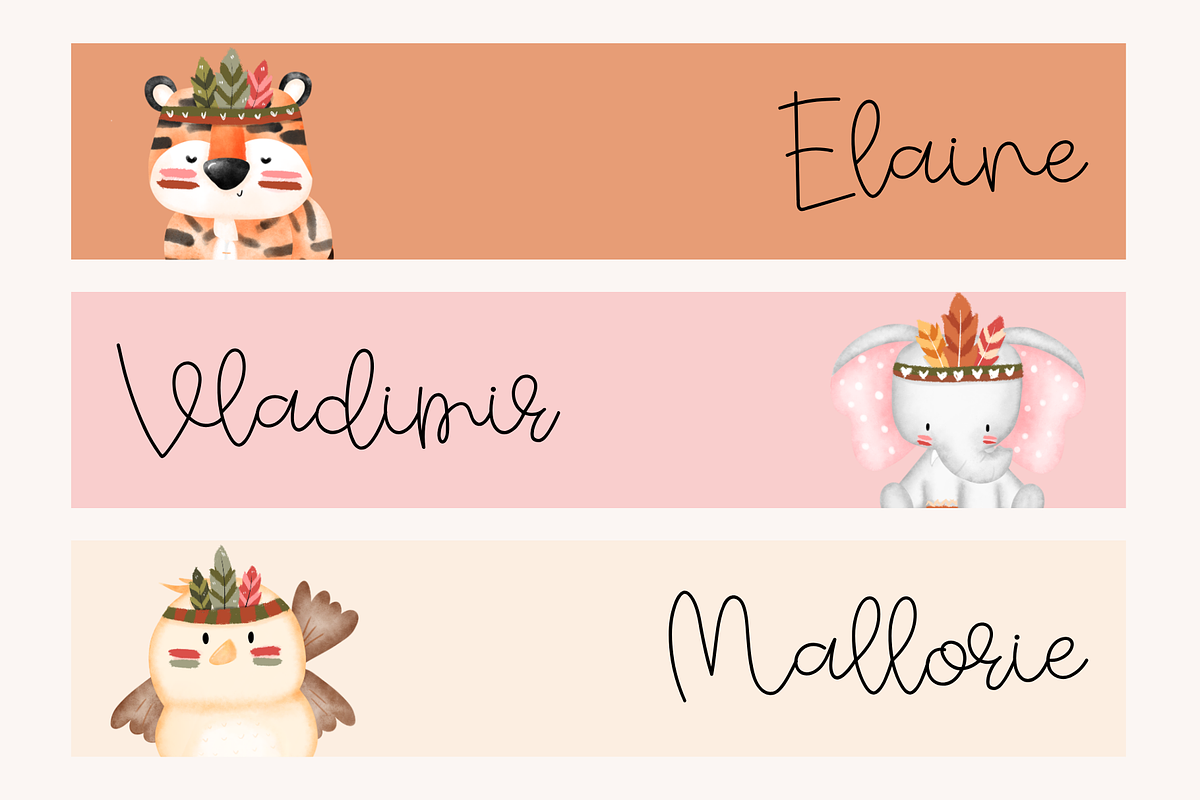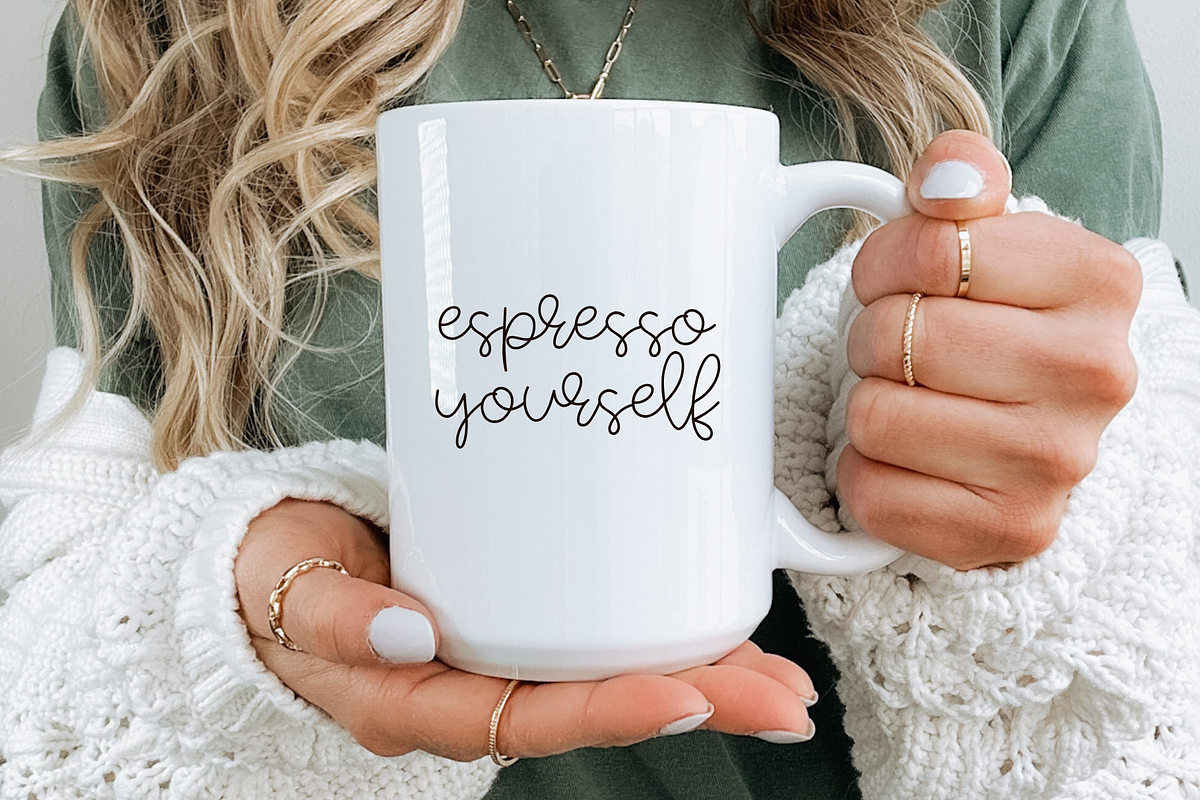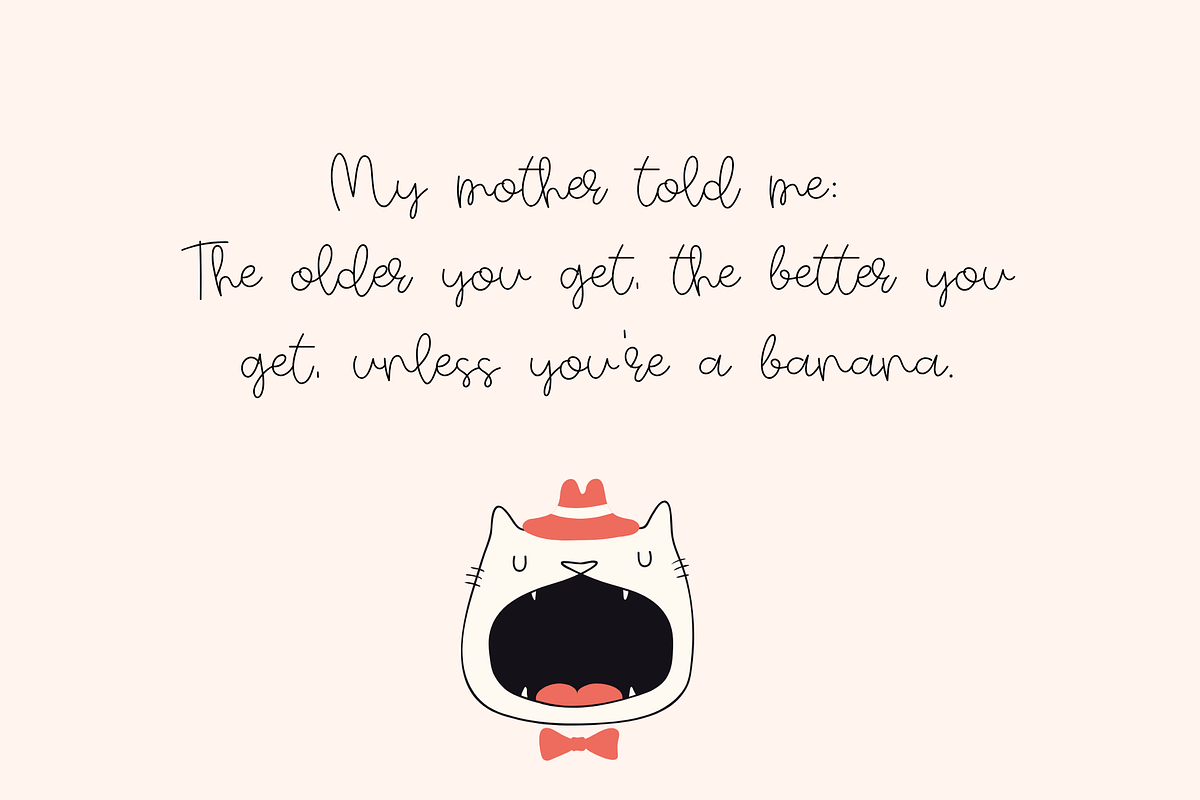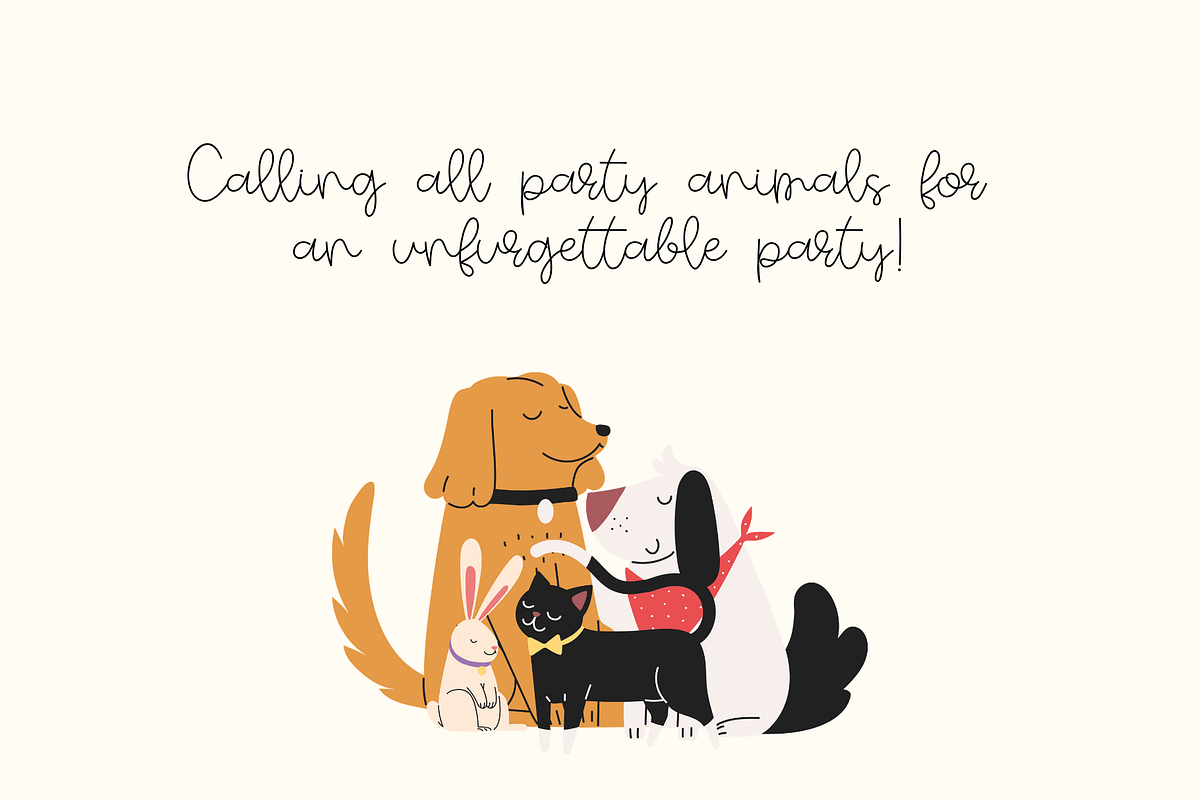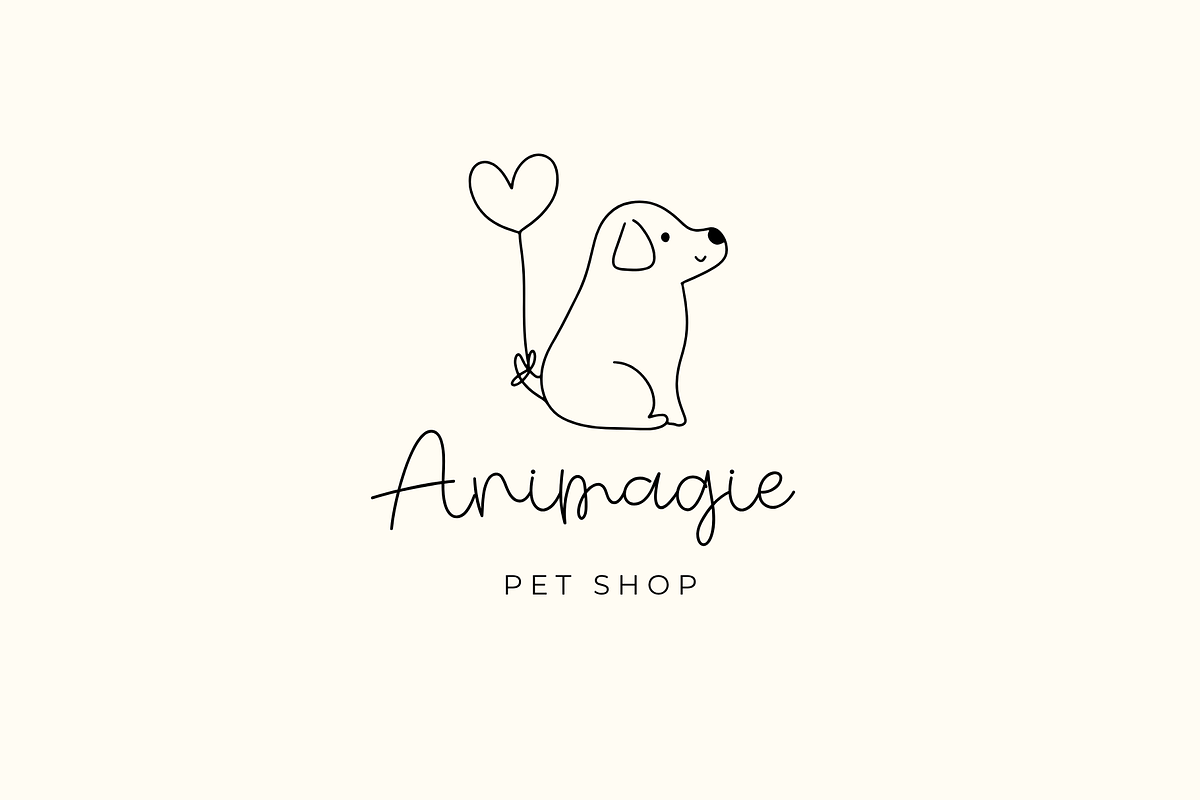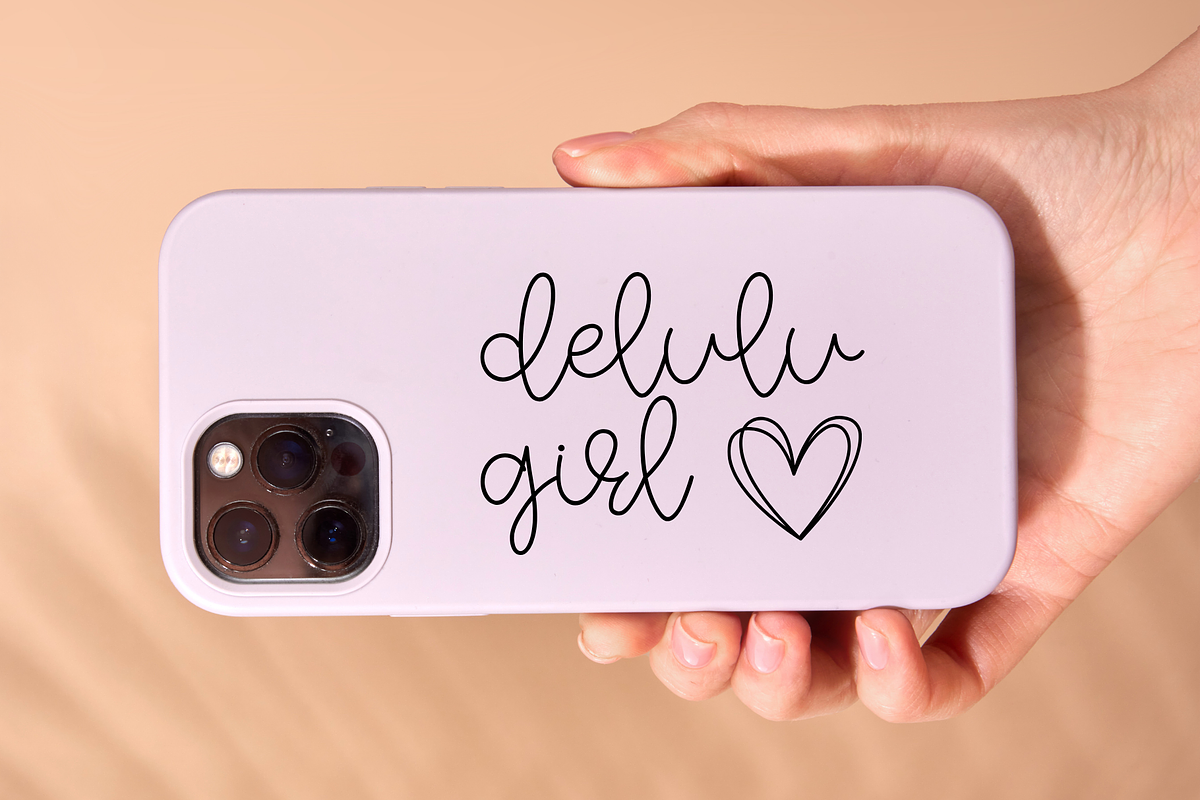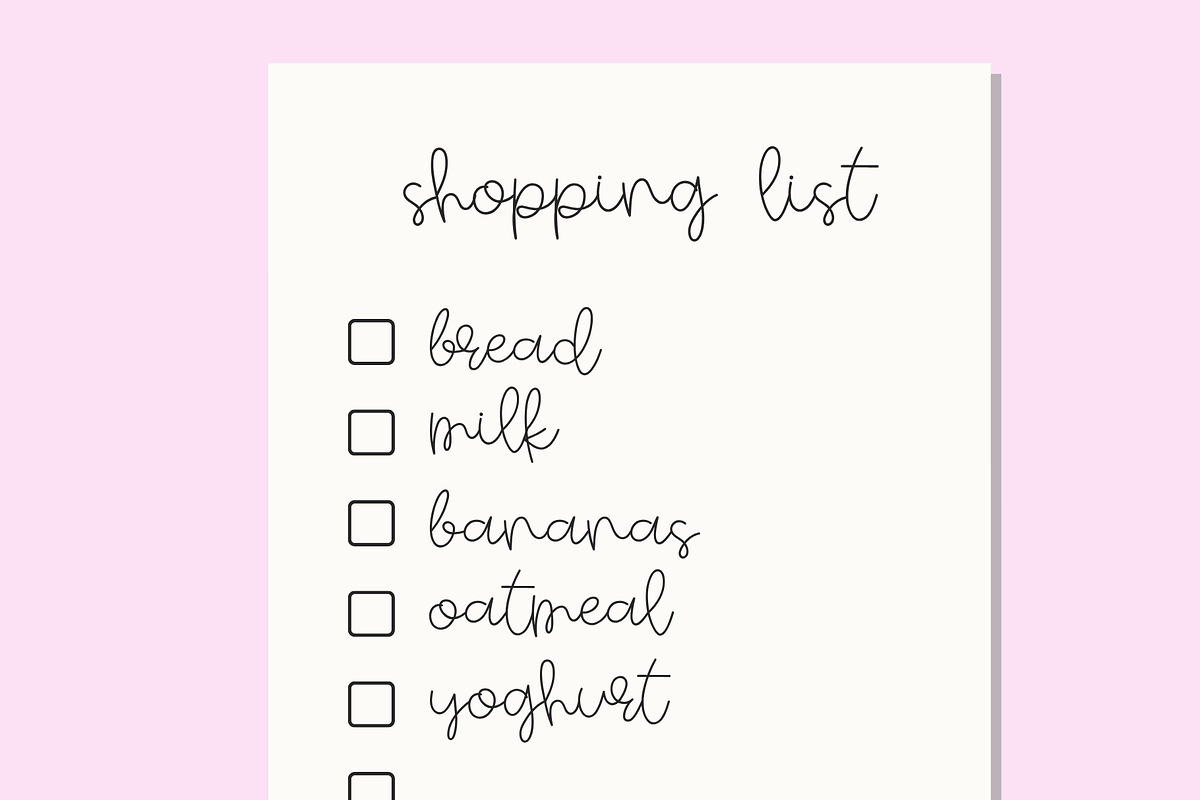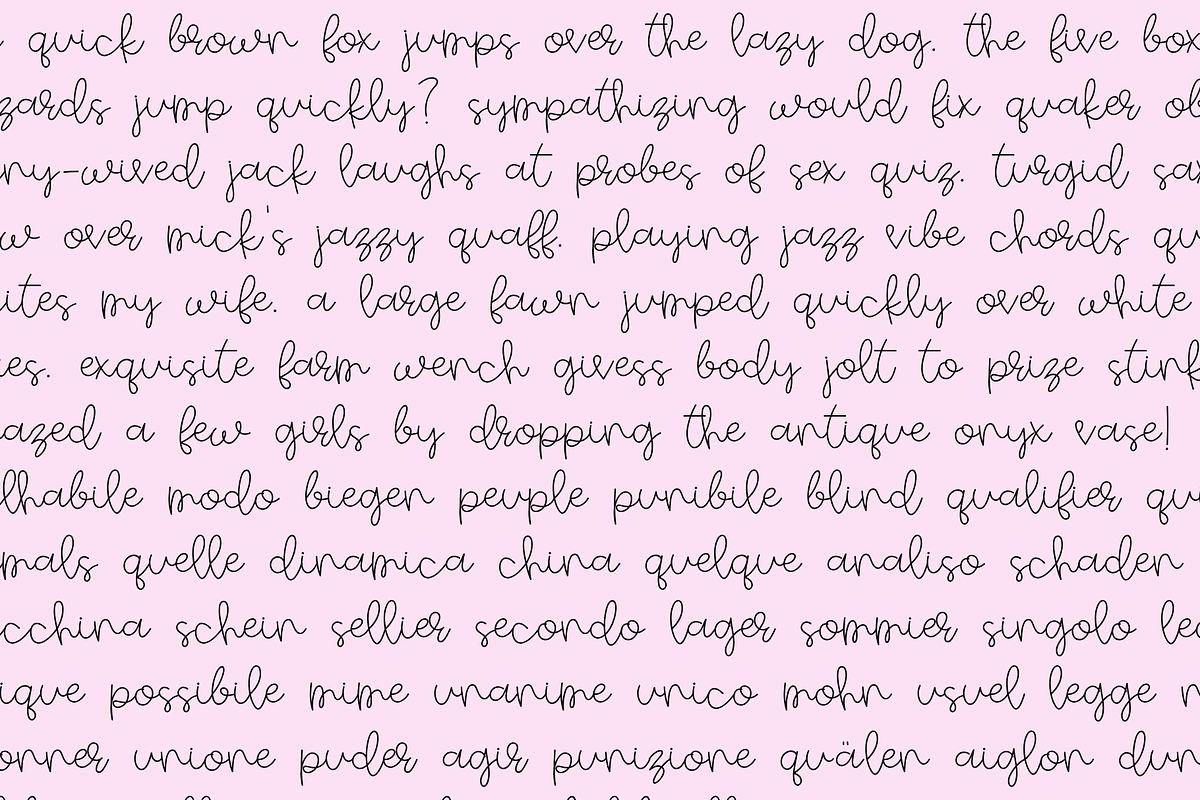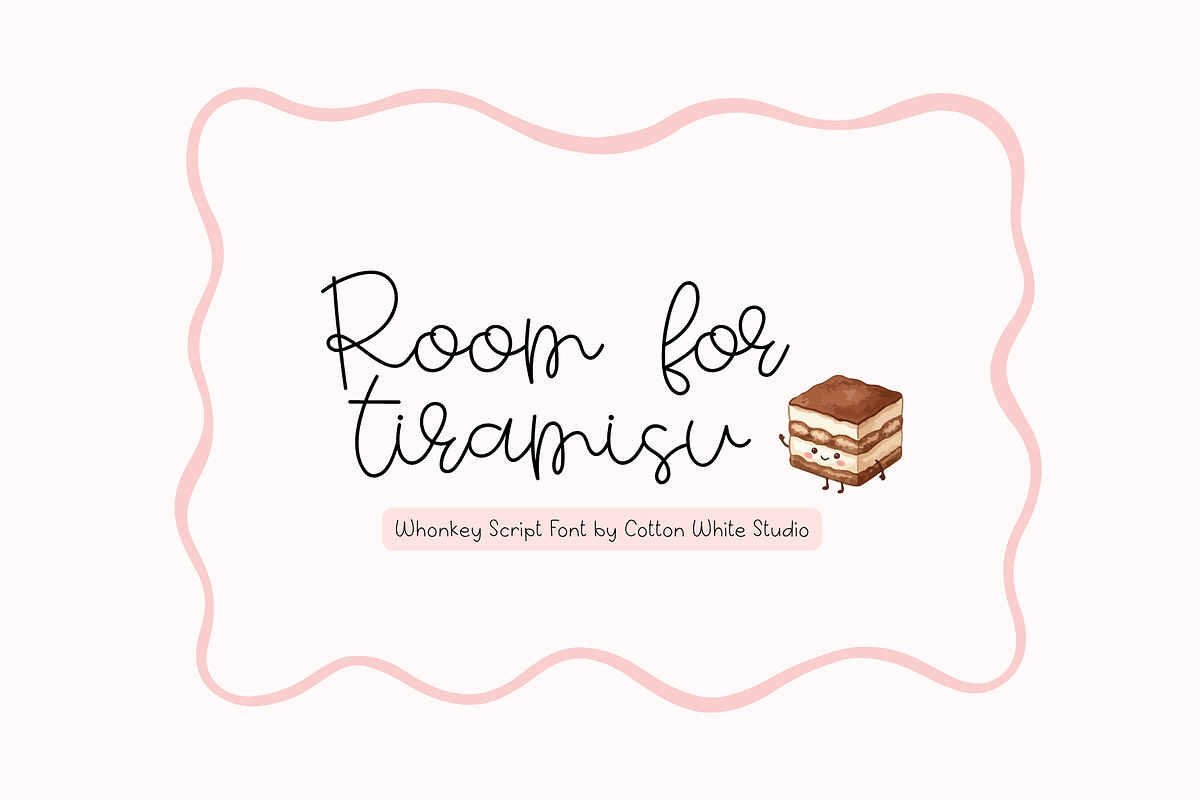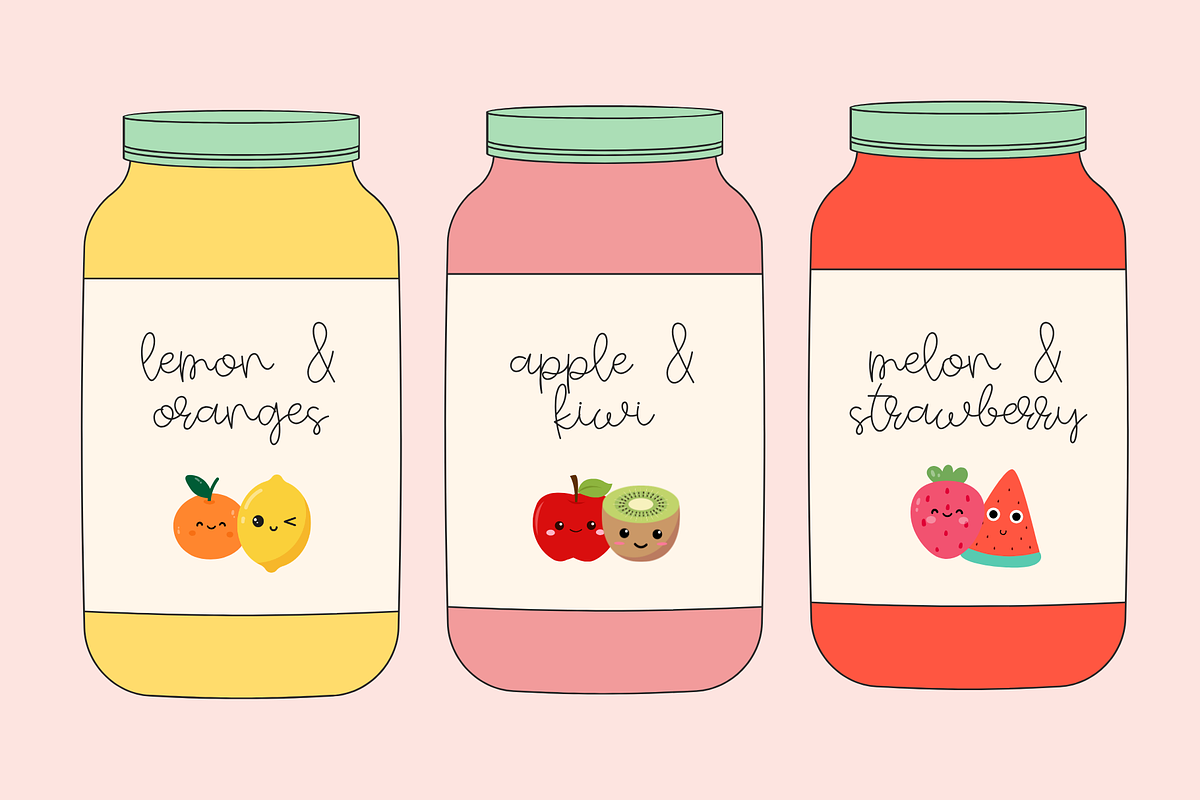
Room for Tiramisu
Introducing Room for Tiramisu, a thin handwritten script font with a playful and whimsical personality. Featuring delicate lines, natural letterforms, adding charm and character to your creative projects. Whether you're creating invitations, personalized gifts, children's products, branding, social media graphics, mugs, stickers, planners, or print-on-demand products, Room for Tiramisu brings a sweet and friendly touch to every design.